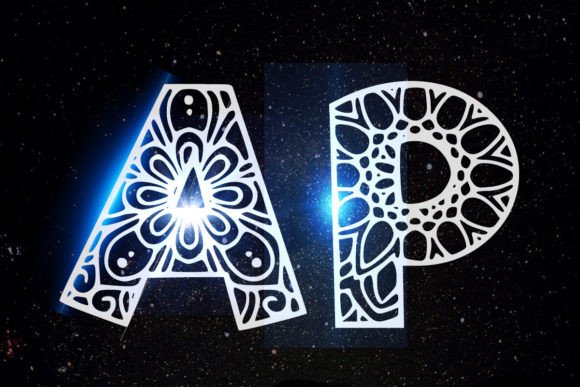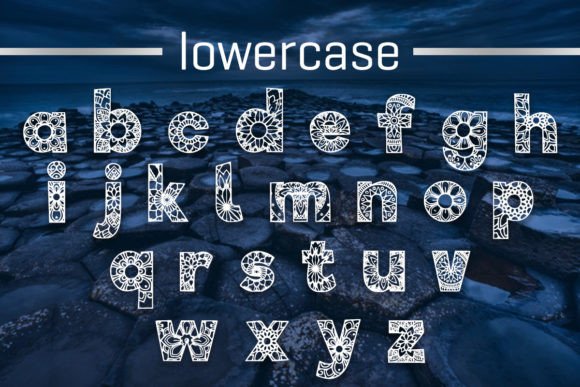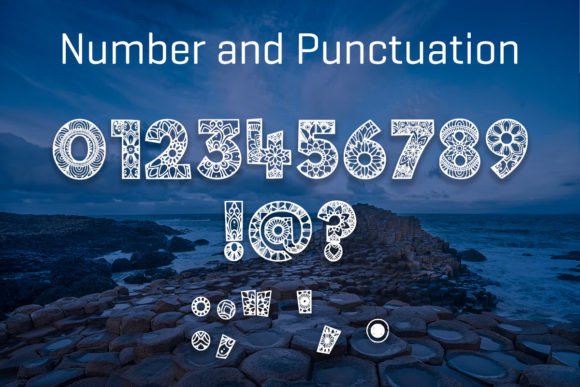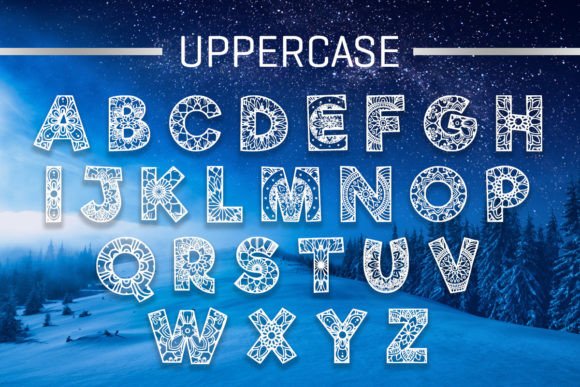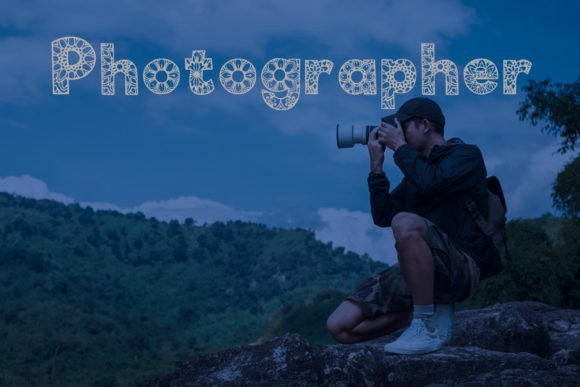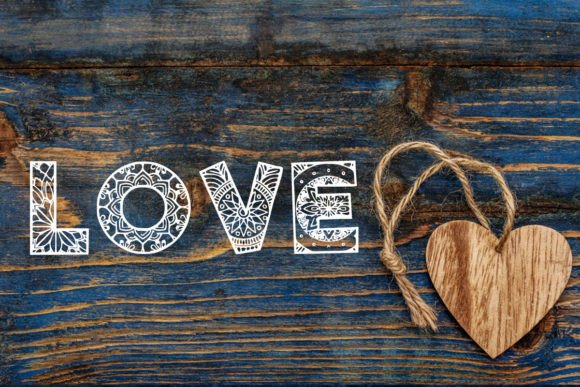
Introduction to Mandy Decor Font
Mandy Decor is a cool, uniquely shaped, and interesting decorative font.
No matter the topic, this font will be an incredible asset to your fontsโ library, as it has the potential to elevate any creation With a modern yet whimsical style, this font has the potential to bring each of your creative ideas to the highest level.